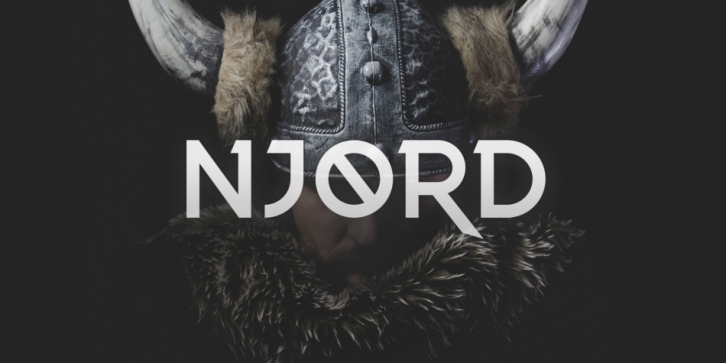
Njord is a display sans font family. This typeface has two styles and was published by Tugcu Design Co.
Njord is a viking inspired display typeface that features a unique alternate style.
I’ve found the font to be great for logos, titles and I enjoy using it with really wide spacing.